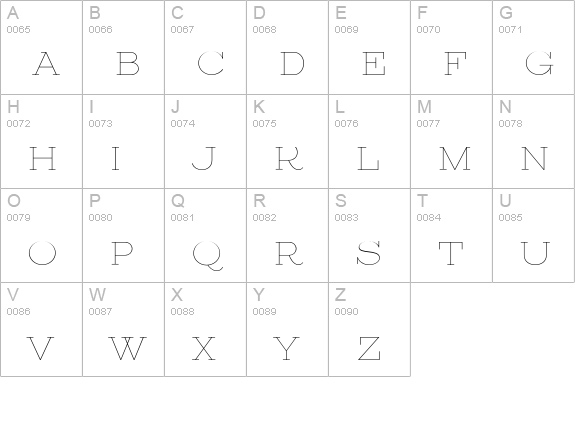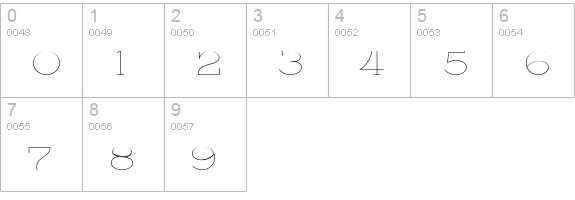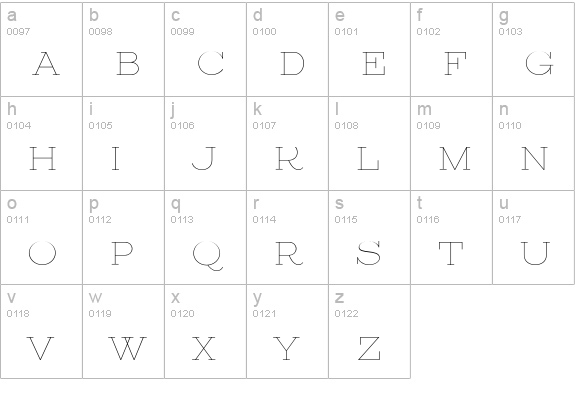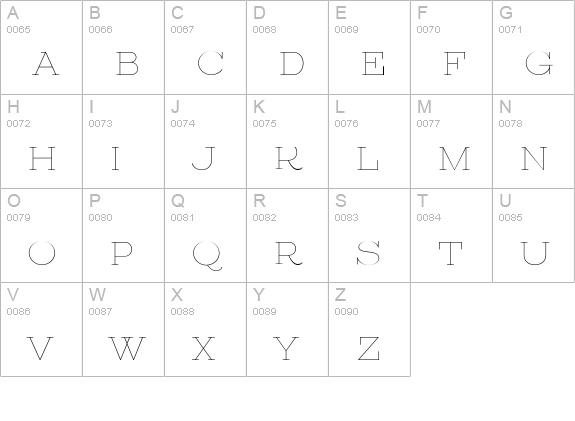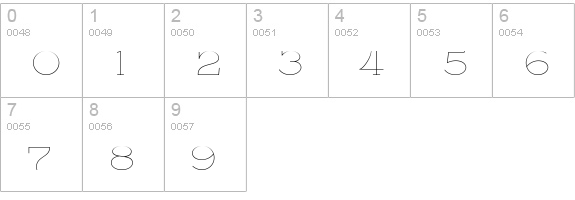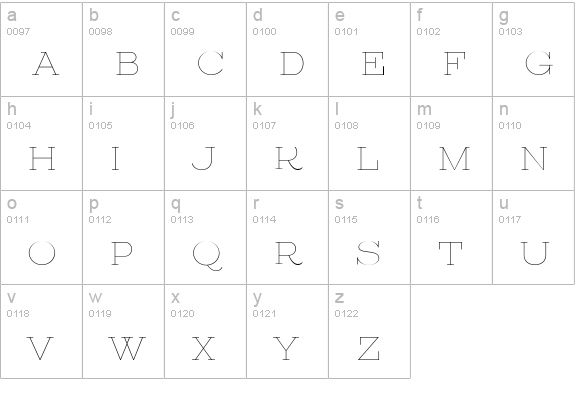
Erotica Capitals Small font is a tantalizing typeface that exudes sensuality and sophistication. Its intricate design and delicate curves evoke a sense of intimacy and intrigue, making it perfect for adding a touch of allure to your design projects. This exquisite font is ideal for creating elegant invitations, seductive posters, or captivating branding materials. With its alluring charm and stylish appeal, Erotica Capitals Small font is sure to captivate your audience and leave a lasting impression. Best of all, this stunning font is available for free download at FontsMarket.com. Simply visit the website to access this enchanting typeface and elevate your designs with a touch of romance and glamour. Don't miss out on the opportunity to enhance your projects with the irresistible charm of Erotica Capitals Small font - download it now and let your creativity shine!